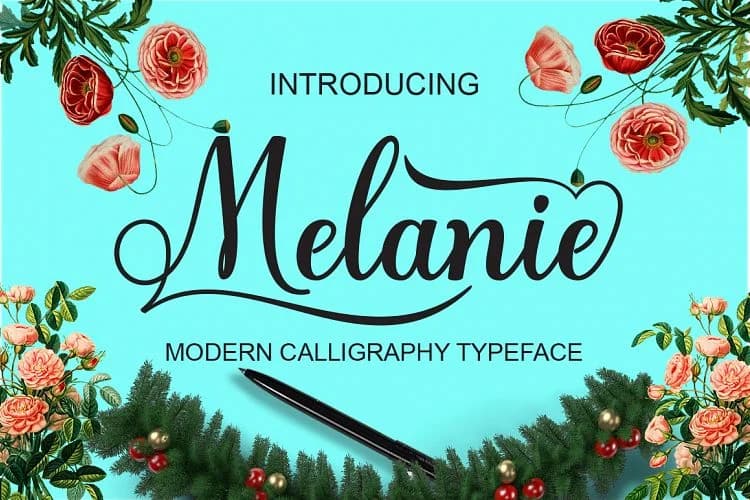
Melanie Font by naldystudio is a flowing script typeface that captures the warmth of pen-and-paper lettering with contemporary polish. The design balances casual approachability with refined elegance, offering the human touch that works equally well for intimate projects and polished commercial applications. Each letterform carries organic, hand-drawn quality without sacrificing clarity or professional presentation.
This handwritten-style font excels across diverse creative work, from wedding invitation suites and personalized stationery sets to Etsy product labels and boutique packaging design. Event signage, greeting card layouts, and hand-drawn branding projects all benefit from its natural character and flowing strokes. The typeface maintains excellent legibility at various sizes while preserving the sketched, authentic aesthetic that brings personality to design work. It works smoothly across desktop design platforms and online tools, ensuring your designs render consistently wherever they're created or viewed.
Whether you're establishing a cohesive brand identity, designing special occasion pieces, or adding handwritten warmth to everyday projects, Melanie Font offers genuine personality that connects with viewers. The versatility makes it equally at home in luxury packaging concepts or casual DIY artwork. Get Melanie Font on Creative Fabrica today and start incorporating this flowing script into your design toolkit.
Melanie Font is a script font that shines as a display or heading face. Pair it with a clean sans-serif or serif font for body text — the contrast creates a clear hierarchy while the two styles stay balanced and easy to read.
Melanie Font
by naldystudio